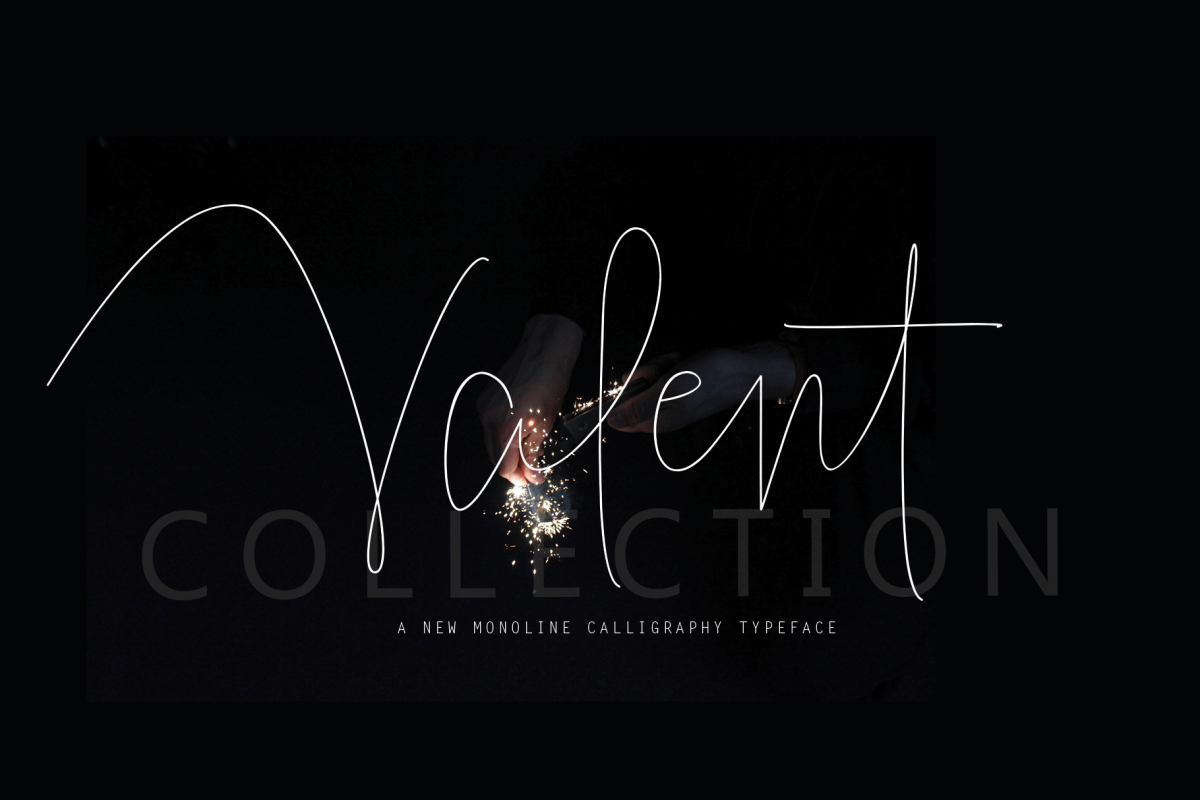
Valent
Valent a work that is purely a result of handwriting, has a natural characteristic. this is perfect for invitations, signatures, blogs, social media, business cards, product brands.
Valent has Stylistic standard, Stylistic Alternate, Stylistic Sets and ligatures. and includes uppercase and lowercase letters, numbers and punctuation marks.